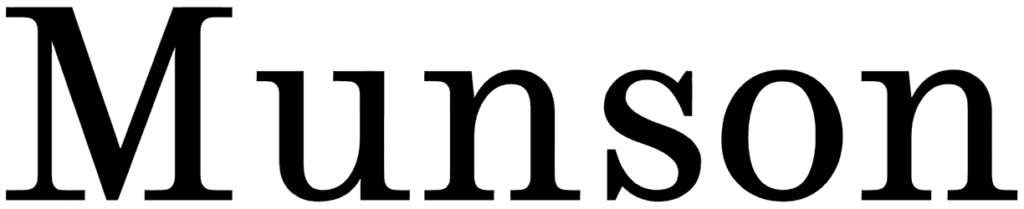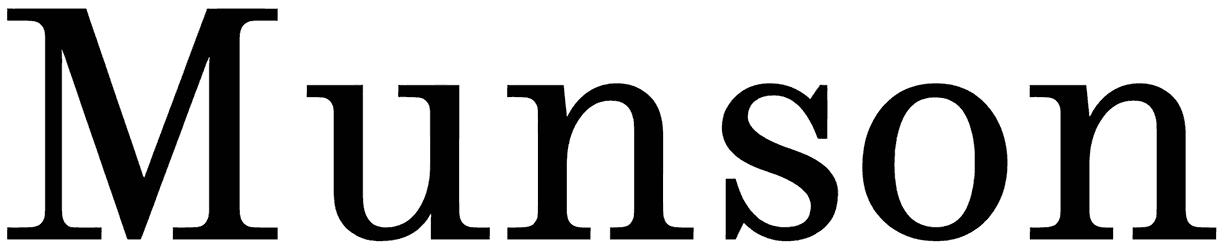
Munson Font
It’s time to channel your inner daredevil and double the speed of your progress with Munson. This serif font is compatible with many of your projects and provides understandable content to the audience. For this reason,…
It’s time to channel your inner daredevil and double the speed of your progress with Munson. This serif font is compatible with many of your projects and provides understandable content to the audience.
For this reason, it is an ideal choice for websites, titles, and anywhere content is a priority. So if you want to enhance your designs, choose one of the 4 Munson weights and styles and key your project to be the best.